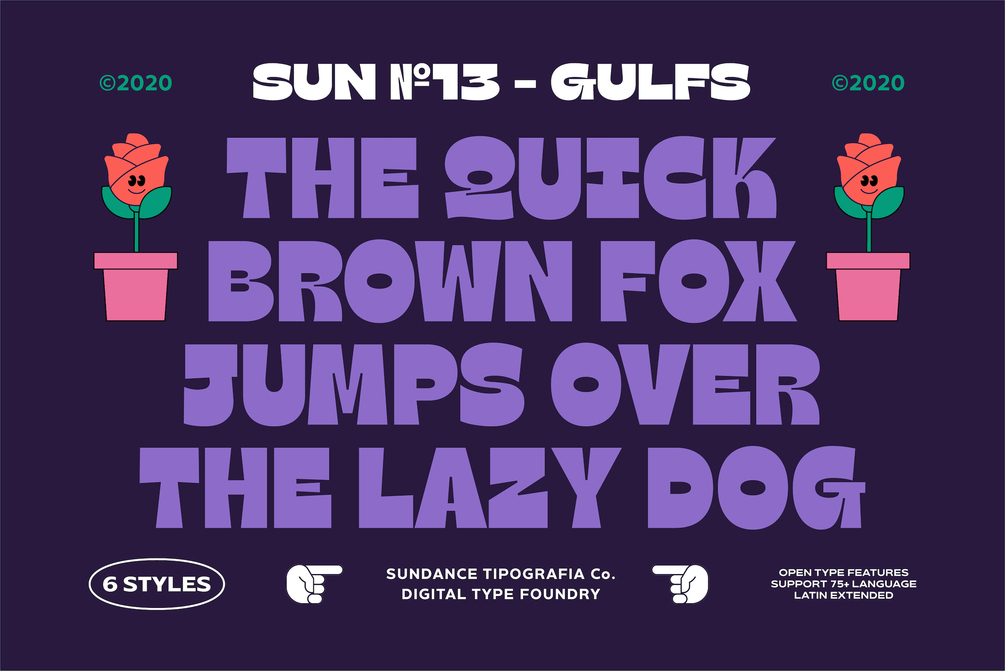
Gulfs Display
Gulfs Display is inspired by the 90's playful cartoons and comic books. This playful typeface comes in six widths which can be used for either modern or vintage designs. It also can be easily paired with some graphic elements (Illustration, Photography) making it perfect for, logotypes, branding or packaging projects.
Designed by Cahya Sofian. Variable font available for the Complete pack. Latin